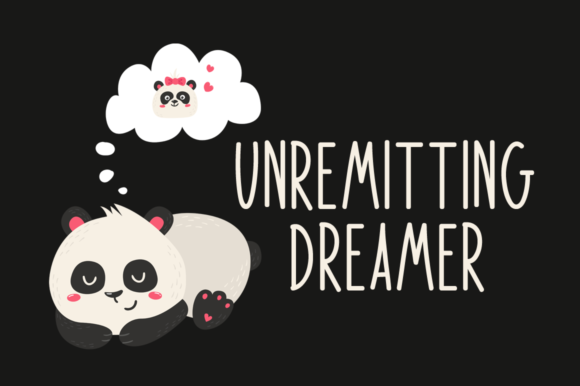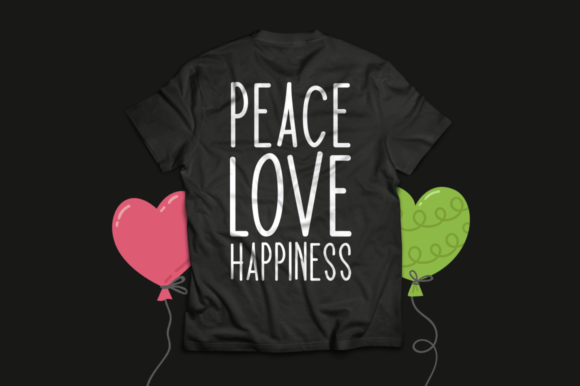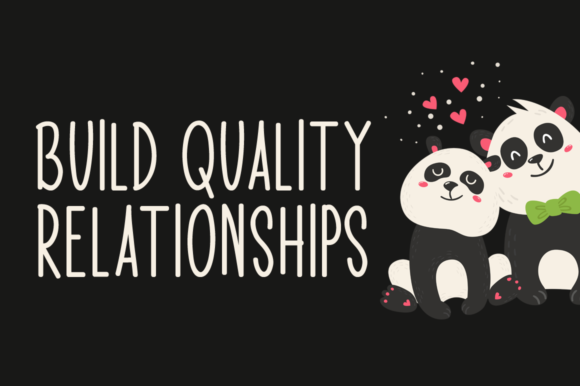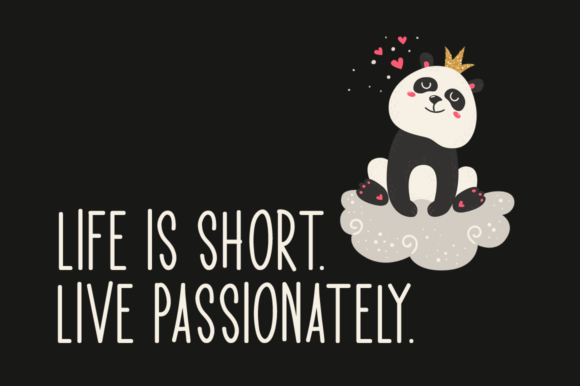
Introducing Delighted Panda Font: The Sweet and Simple Handwritten Font for Your Creative Projects
Are you a designer or crafter looking for a font that can add a touch of sweetness and simplicity to your creative projects? Look no further than Delighted Panda Font! This beautiful handwritten font is perfect for a wide range of designs, from invitations and greeting cards to branding and packaging.
What Makes Delighted Panda Font So Special?
Delighted Panda Font is a sweet and simple handwritten font that boasts a natural and unique style. Its effortless charm makes it incredibly fitting to a large pool of designs, allowing you to add a personal touch to your projects. Whether you’re creating something for a client or for your own brand, Delighted Panda Font is sure to impress.
Key Features of Delighted Panda Font
- Handwritten style: Delighted Panda Font has a beautiful, handwritten style that’s perfect for adding a personal touch to your designs.
- Sweet and simple: This font is characterized by its sweet and simple aesthetic, making it perfect for a wide range of creative projects.
- Natural and unique: Delighted Panda Font has a natural and unique style that sets it apart from other fonts.
- Versatile: This font is incredibly versatile and can be used for a wide range of designs, from invitations and greeting cards to branding and packaging.
Delighted Panda Font is perfect for designers and crafters who want to add a touch of personality to their projects. Whether you’re creating something for a client or for your own brand, this font is sure to impress. Its sweet and simple style makes it perfect for:
- Invitations and greeting cards: Delighted Panda Font is perfect for creating beautiful invitations and greeting cards for special occasions.
- Branding and packaging: This font is great for adding a personal touch to your brand’s packaging and marketing materials.
- Digital and print designs: Delighted Panda Font can be used for both digital and print designs, making it a versatile addition to your font collection.
Tips for Using Delighted Panda Font
Here are a few tips for using Delighted Panda Font in your designs:
- Pair it with other fonts: Delighted Panda Font pairs well with other fonts, so feel free to experiment with different combinations to find the perfect look for your project.
- Use it for headings and titles: This font is perfect for headings and titles, where its sweet and simple style can really shine.
- Experiment with different colors: Delighted Panda Font looks great in a variety of colors, so don’t be afraid to experiment and find the perfect color scheme for your project.
Delighted Panda Font is a beautiful and versatile handwritten font that’s perfect for designers and crafters. Its sweet and simple style makes it incredibly fitting to a large pool of designs, and its natural and unique aesthetic sets it apart from other fonts. Whether you’re creating something for a client or for your own brand, Delighted Panda Font is sure to impress.